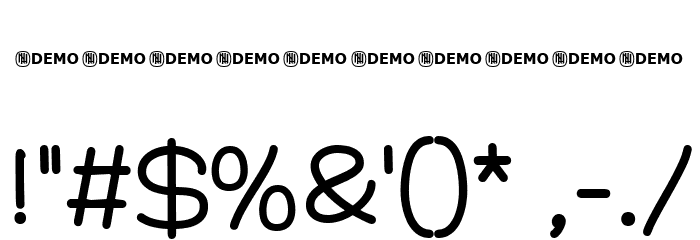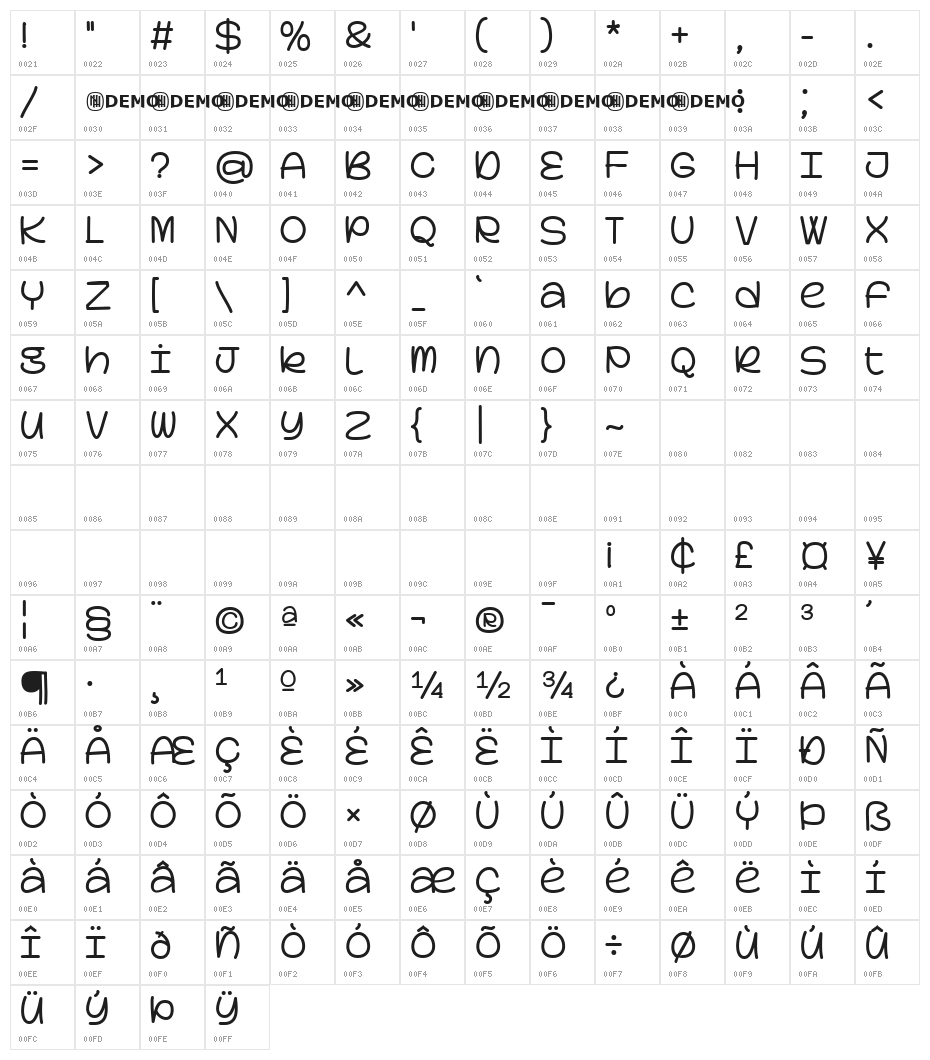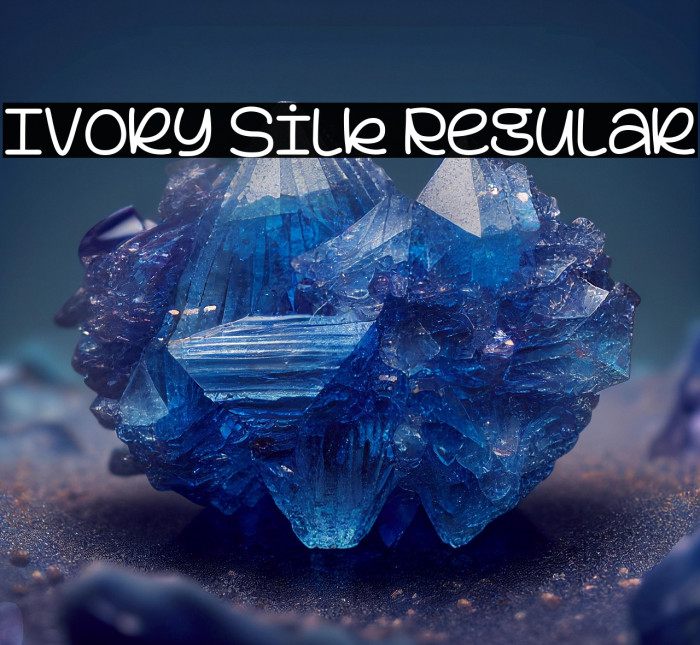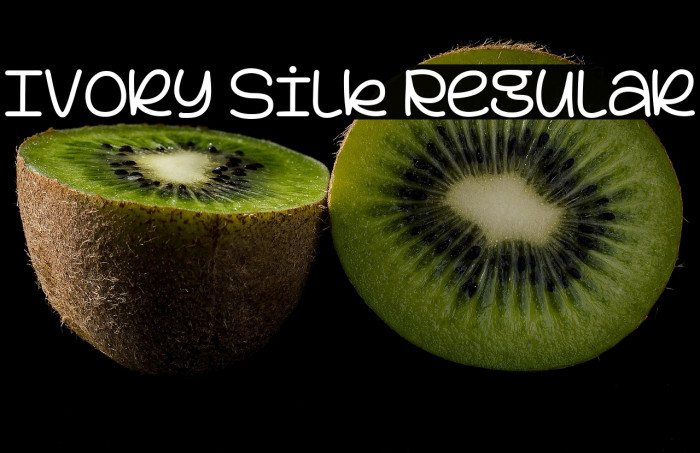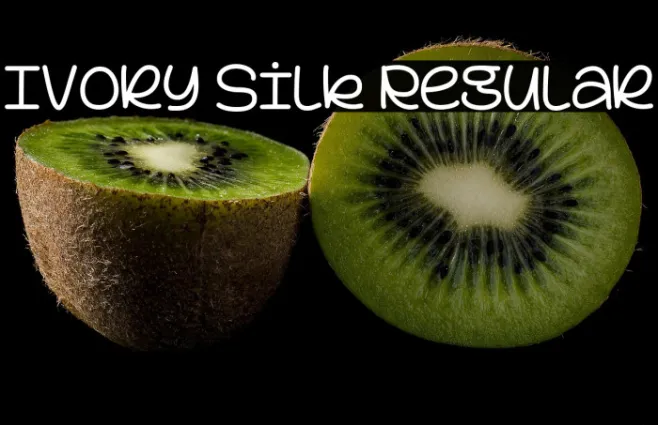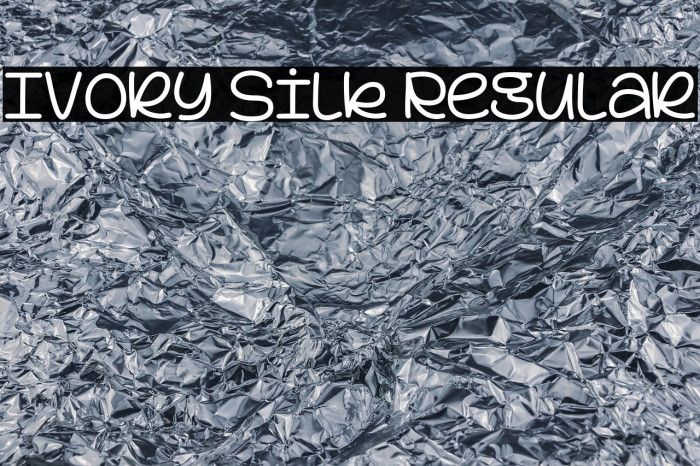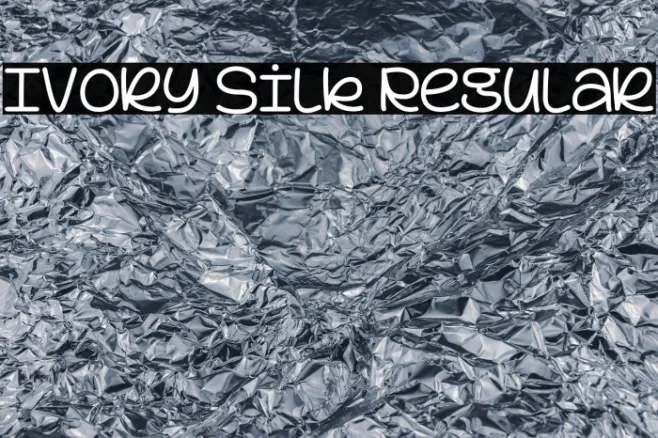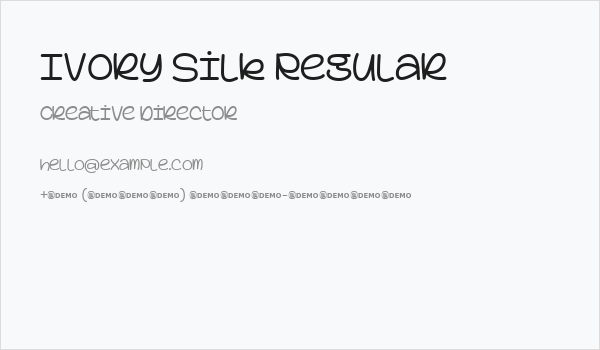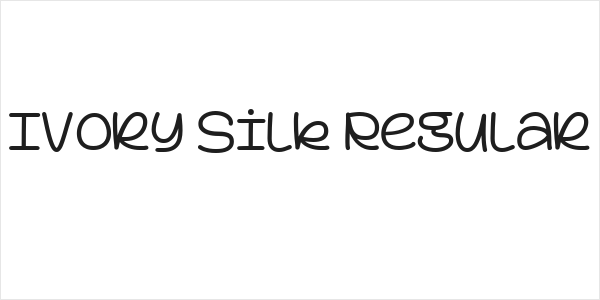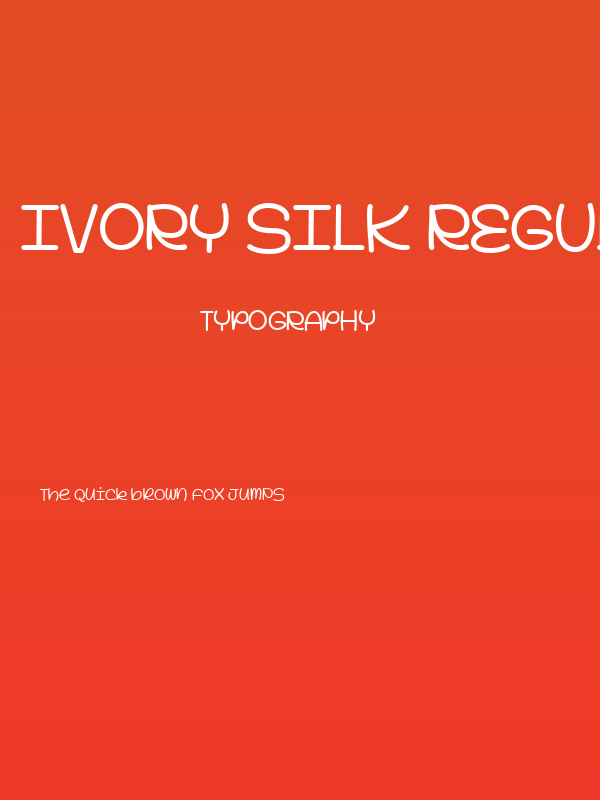
Ivory Silk Regular Font
Ivory Silk Regular Description
This font features a playful and rounded style, characterized by its smooth, flowing curves and uniform stroke width. The letters have a whimsical, almost handwritten quality, with a consistent thickness that gives it a friendly and approachable appearance. The uppercase and lowercase letters maintain a cohesive look, with rounded edges and a slightly informal structure. The numerals and special characters follow the same design principles, ensuring a harmonious overall aesthetic. This font is versatile, suitable for projects that require a touch of personality and warmth.
Overall StylePlayful
Use CaseHeadlines, Logos, Casual Text
Proposed ProjectsIdeal for children's books, playful branding, greeting cards, and casual invitations.